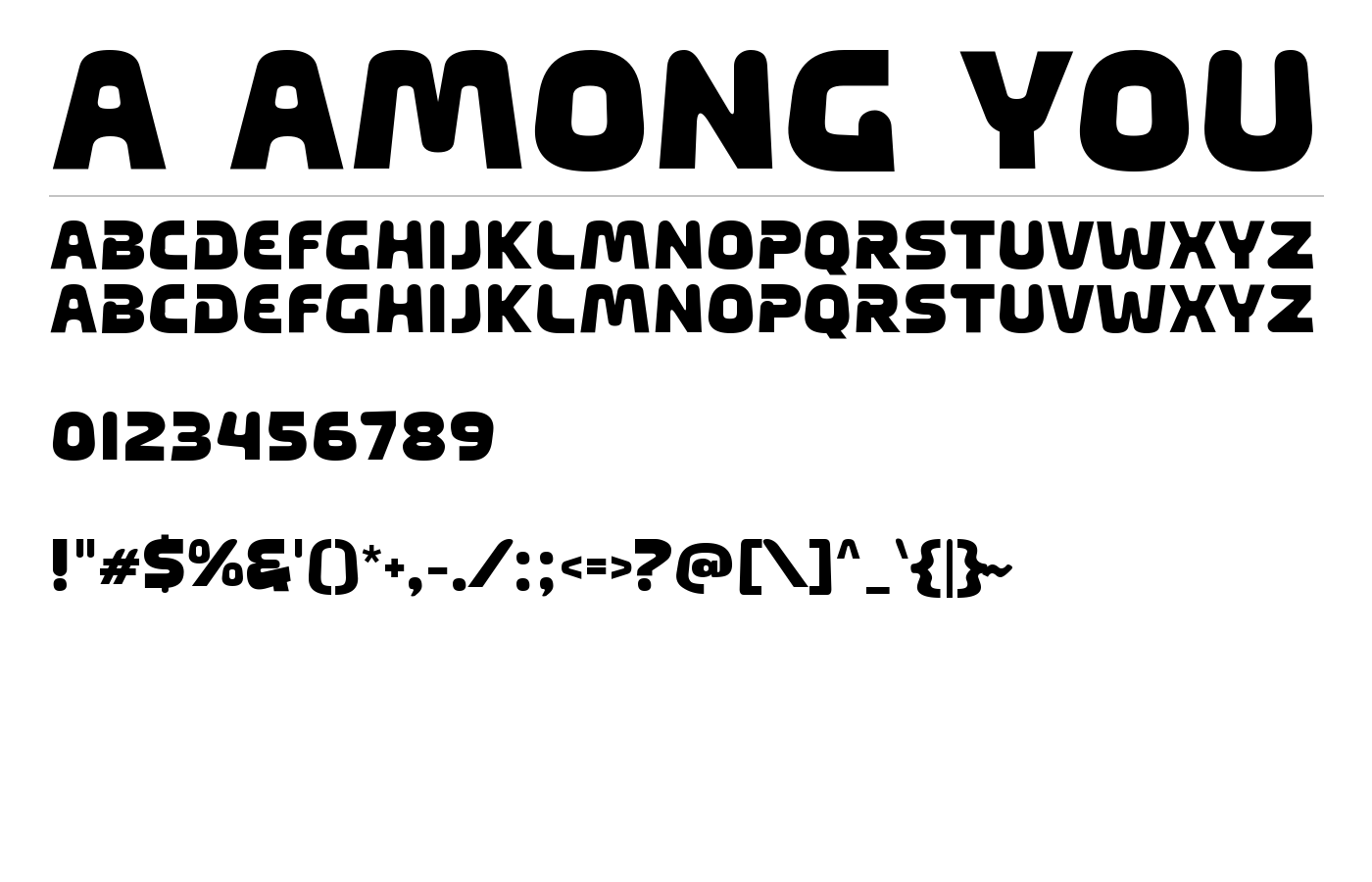
Among You is a bold, playful sans serif font characterized by its rounded, chunky letterforms and uniform stroke weight that give it a friendly, approachable feel. Its wide, slightly condensed shapes and quirky details make it perfect for eye-catching headlines, logos, or branding projects that want to convey fun and creativity. This font works well in designs aimed at younger audiences or for casual, informal contexts where a lively and modern impression is desired.
a Among You Font